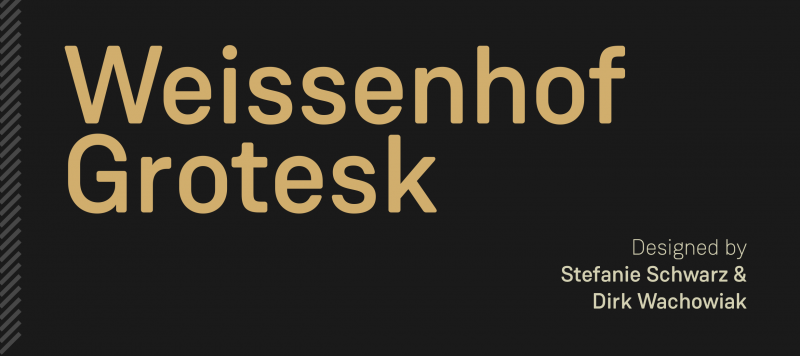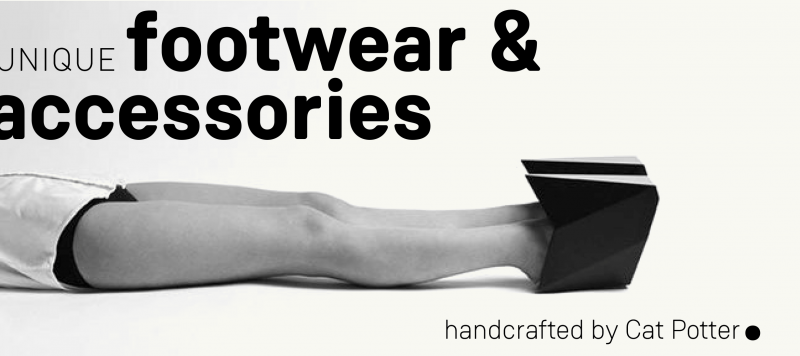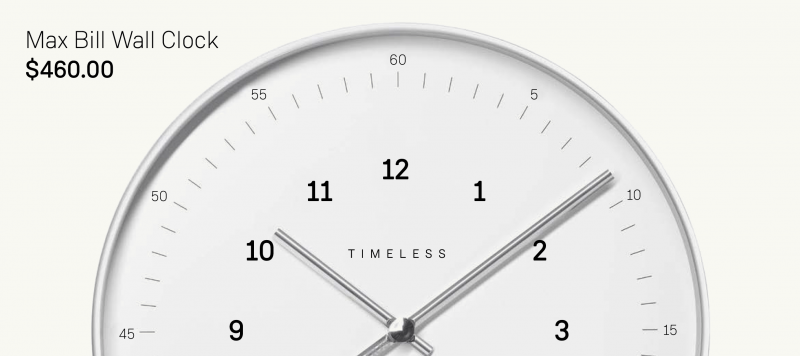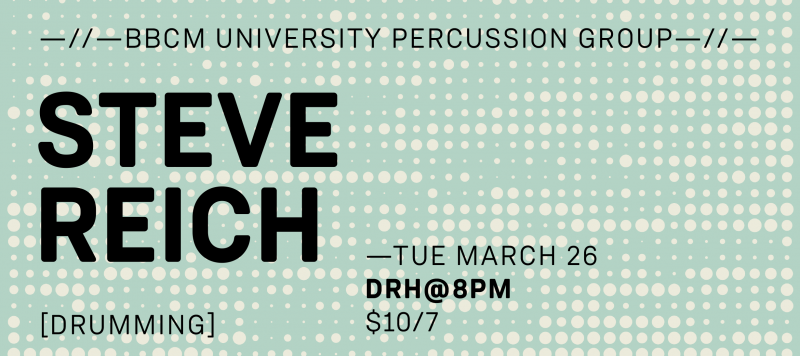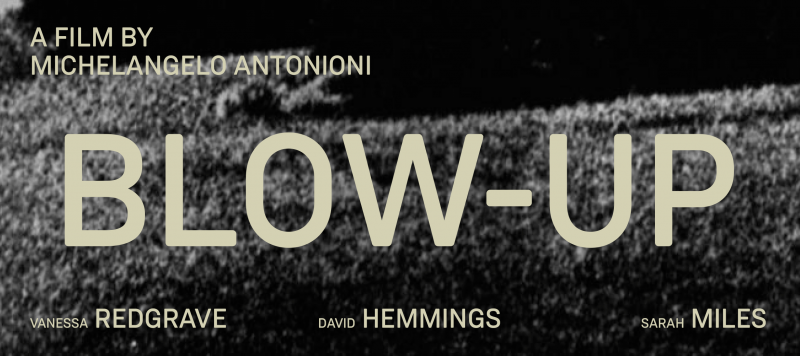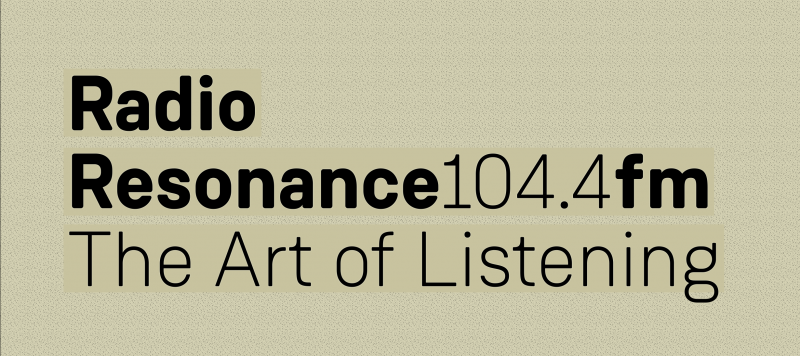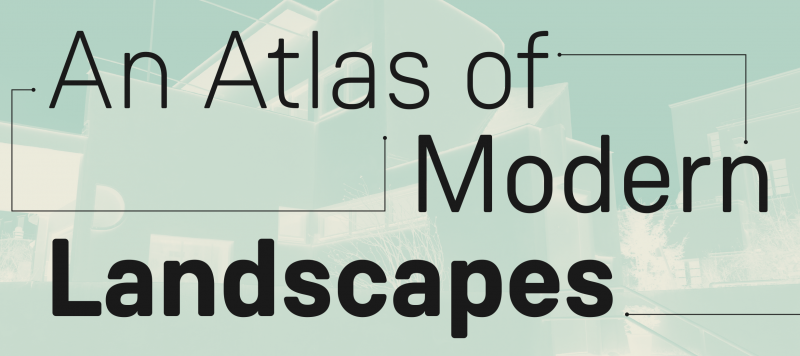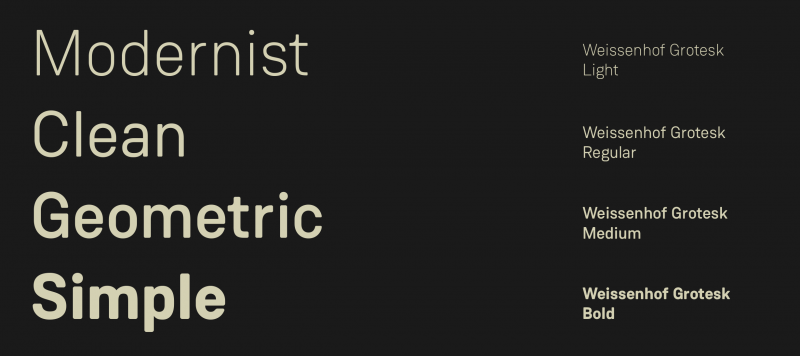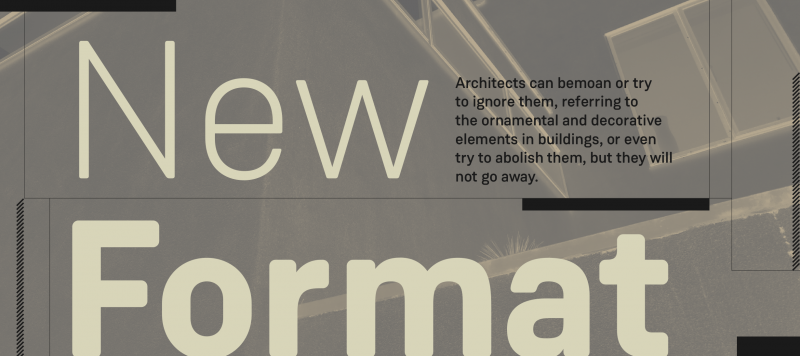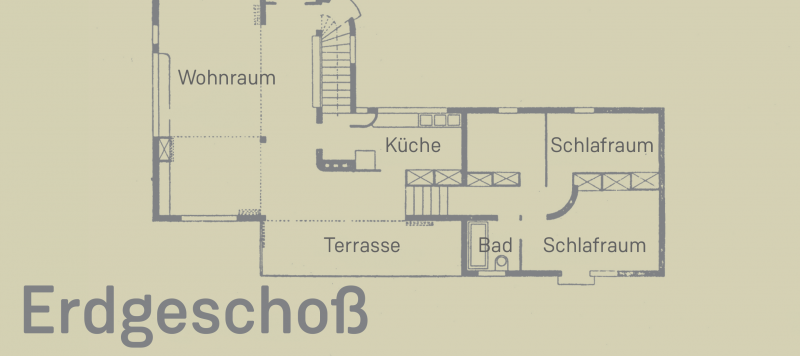
Weissenhof Grotesk is a constructed geometric sans serif from Stefanie Schwarz and Dirk Wachowiak – two designers from Stuttgart, where the Weissenhofsiedlung, or Weissenhof Estate, was built in 1927. Their family ships with four weights, each of which has an italic. The typeface’s letterforms are inspired by modern architectural features, such as curves combining with straight segments. The straight-sided “o”, for instance, acts as a pattern for many other letters. Weissenhof Grotesk features monolinear strokes and a good amount of contrast between the stroke thickness of each weight. Its letter proportions tend toward equalisation, without becoming monospaced. The corners of each stroke’s endings are rounded-off.
| Family Name | Weissenhof Grotesk |
| Designer(s) | Dirk Wachowiak, Stefanie Schwarz |
| Classification | Sans |